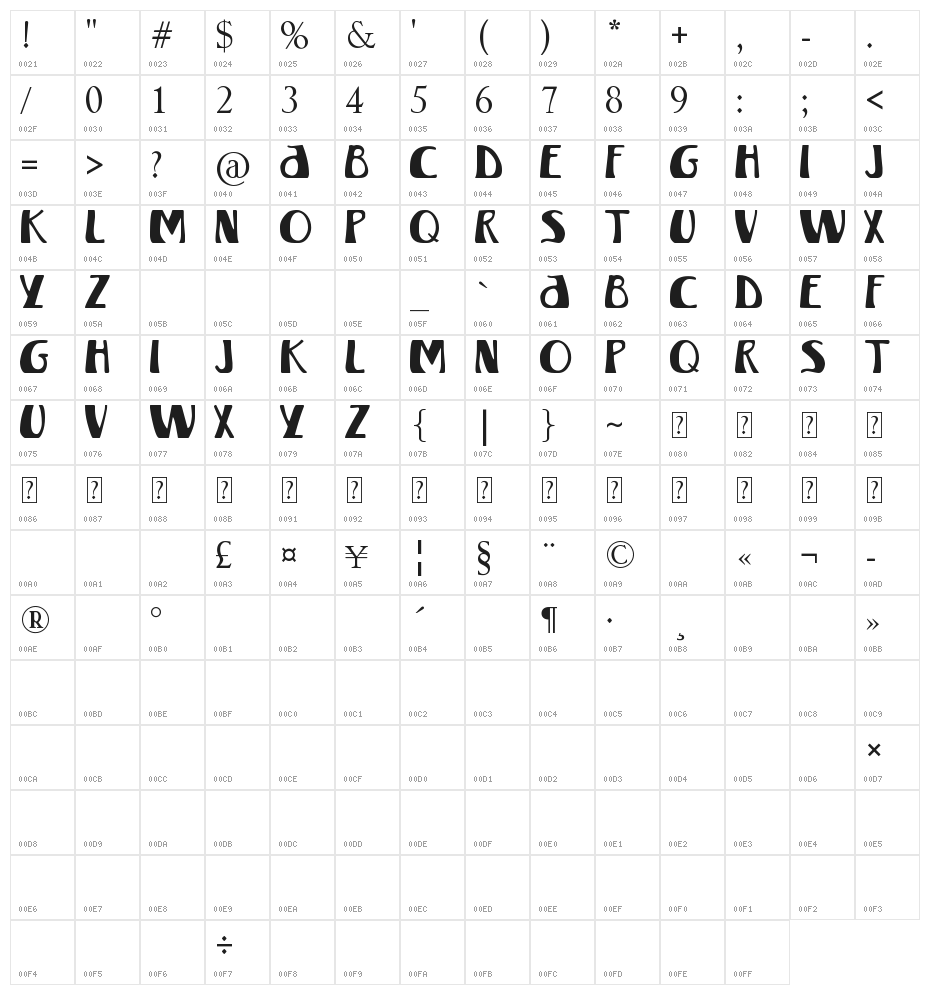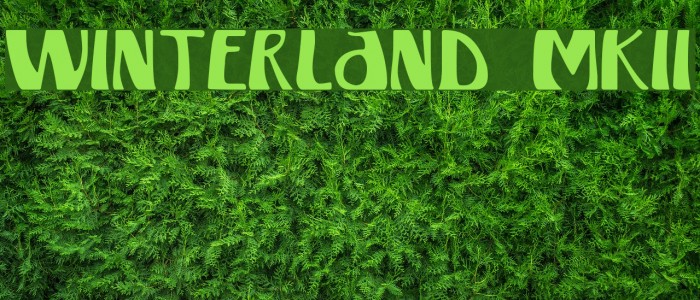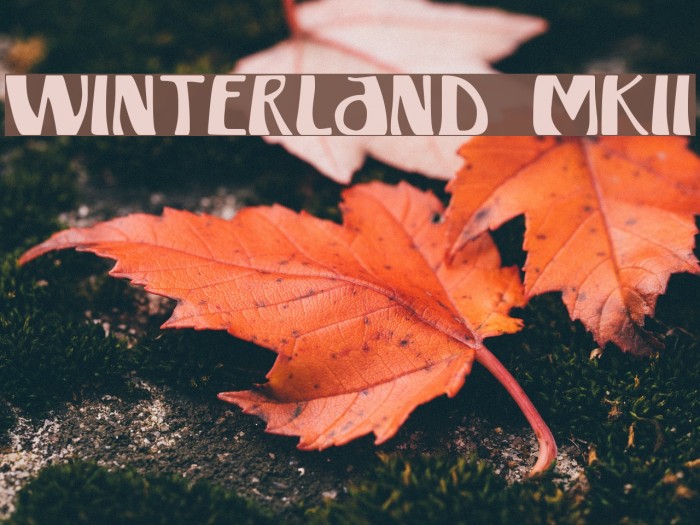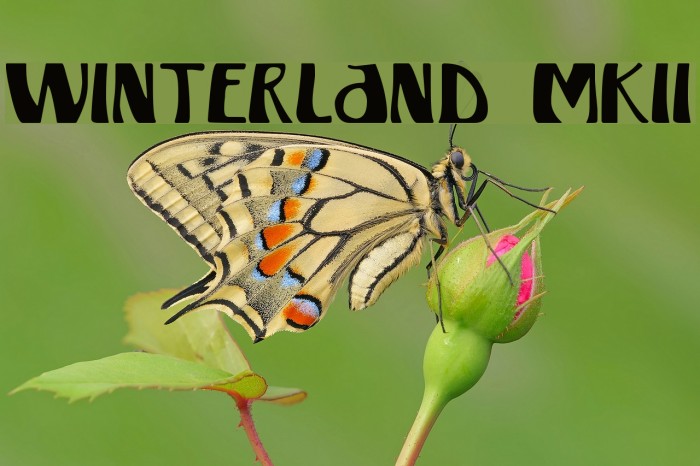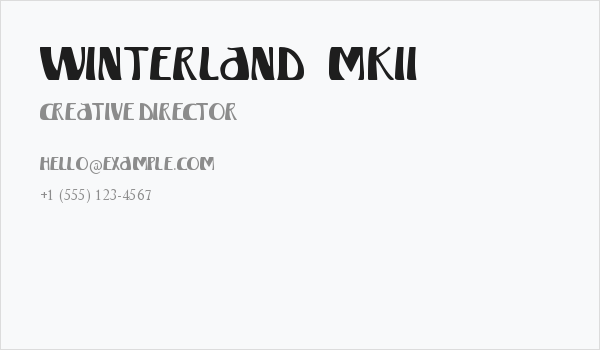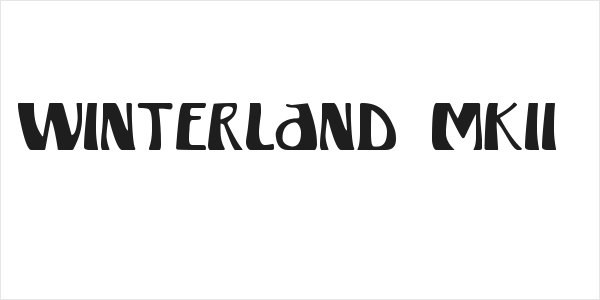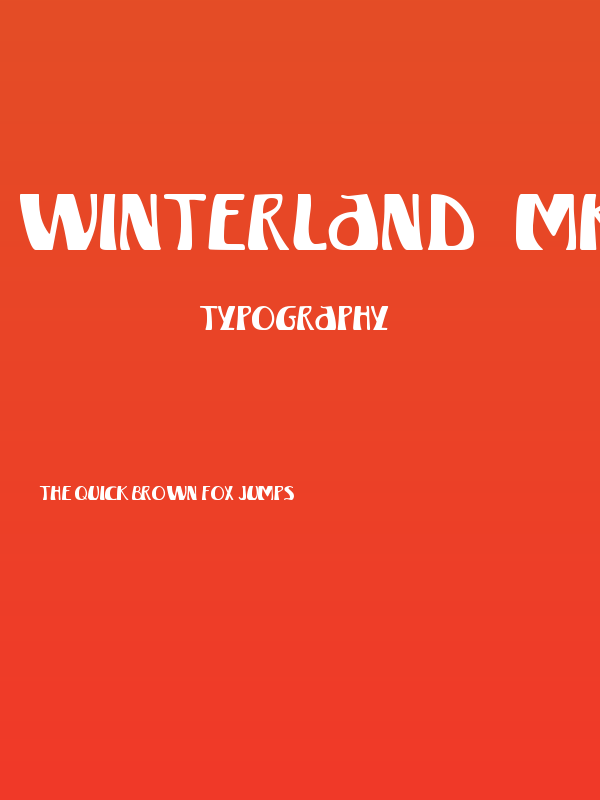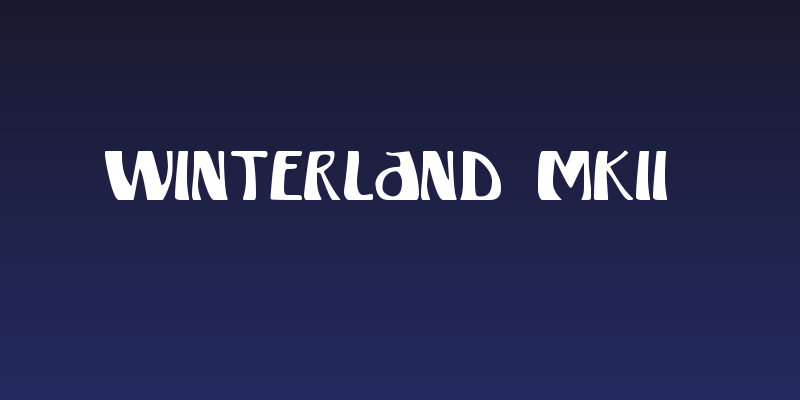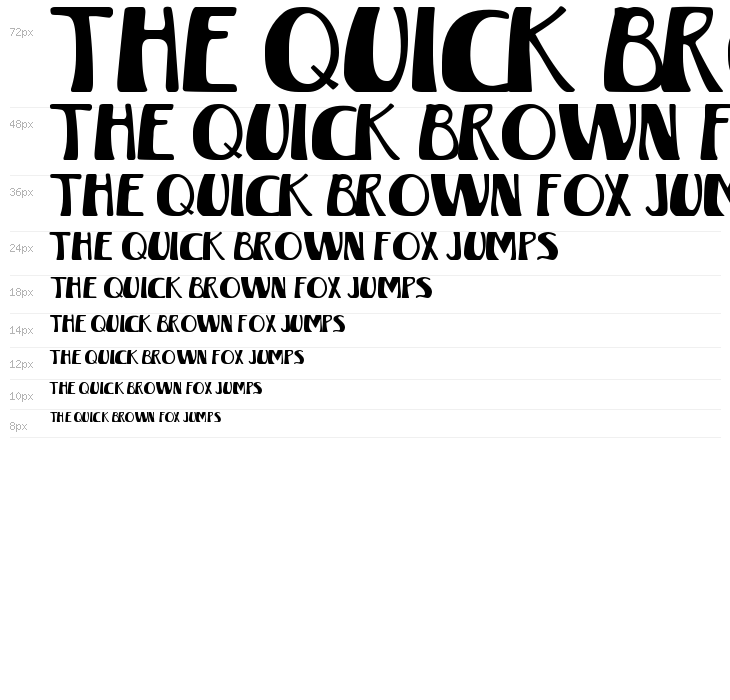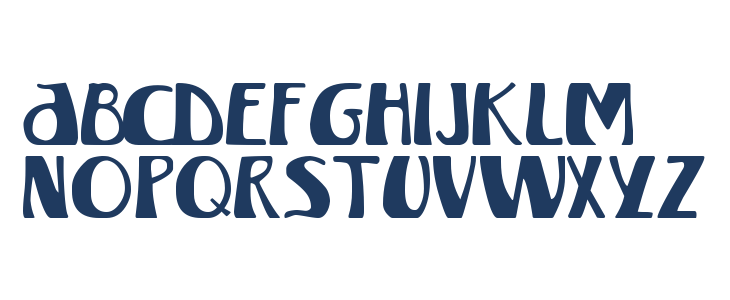
Winterland [MKII] Font
Winterland [MKII] Description
This font features a playful and whimsical design with a unique blend of curves and sharp edges. The uppercase letters are bold and dynamic, with a slight slant that adds a sense of movement and energy. The lowercase letters maintain a consistent style, complementing the uppercase with their rounded forms and distinctive character. Numbers are crafted with a similar flair, ensuring readability while maintaining the font's overall aesthetic. Special characters are thoughtfully designed to match the playful nature of the font, making it suitable for creative and artistic projects.
| Proposed Projects | Ideal for children's books, playful branding, creative posters, and artistic invitations. |